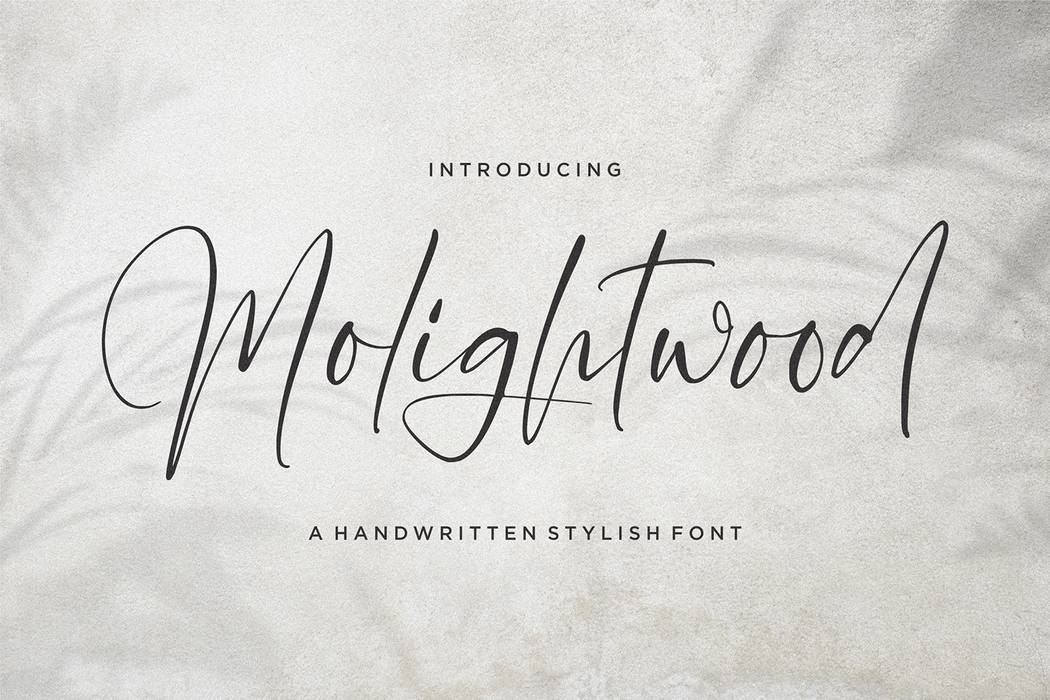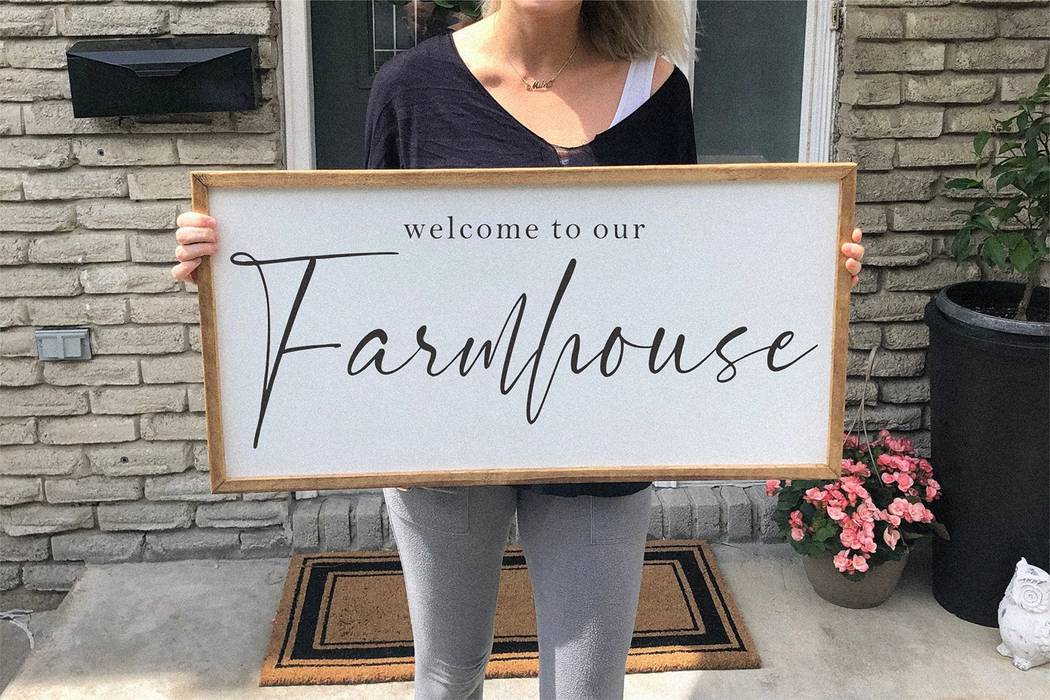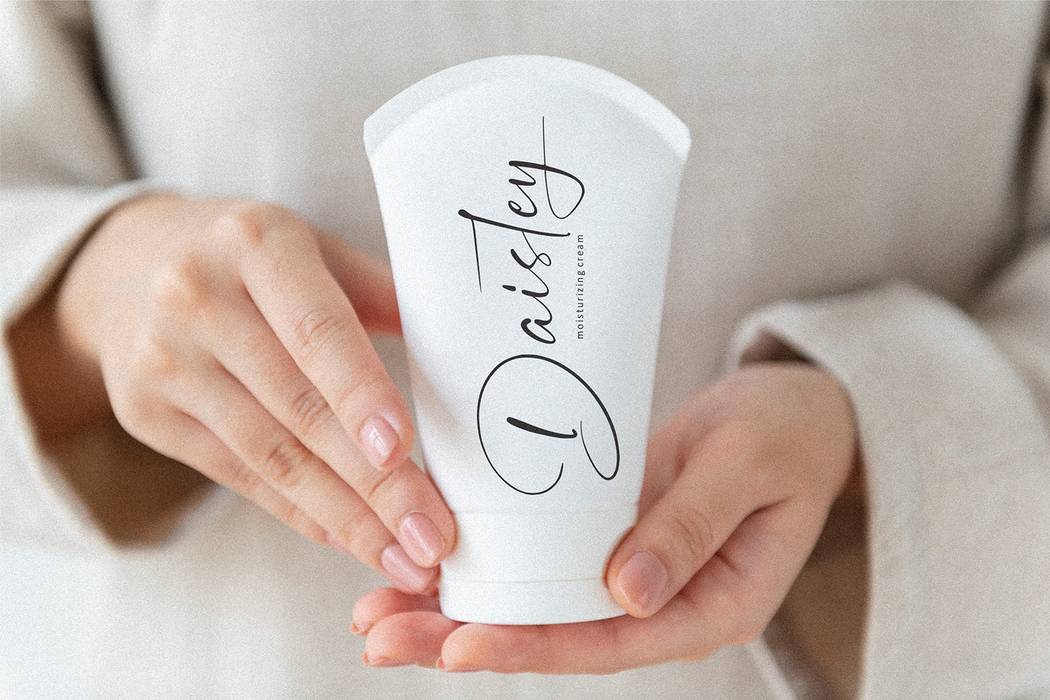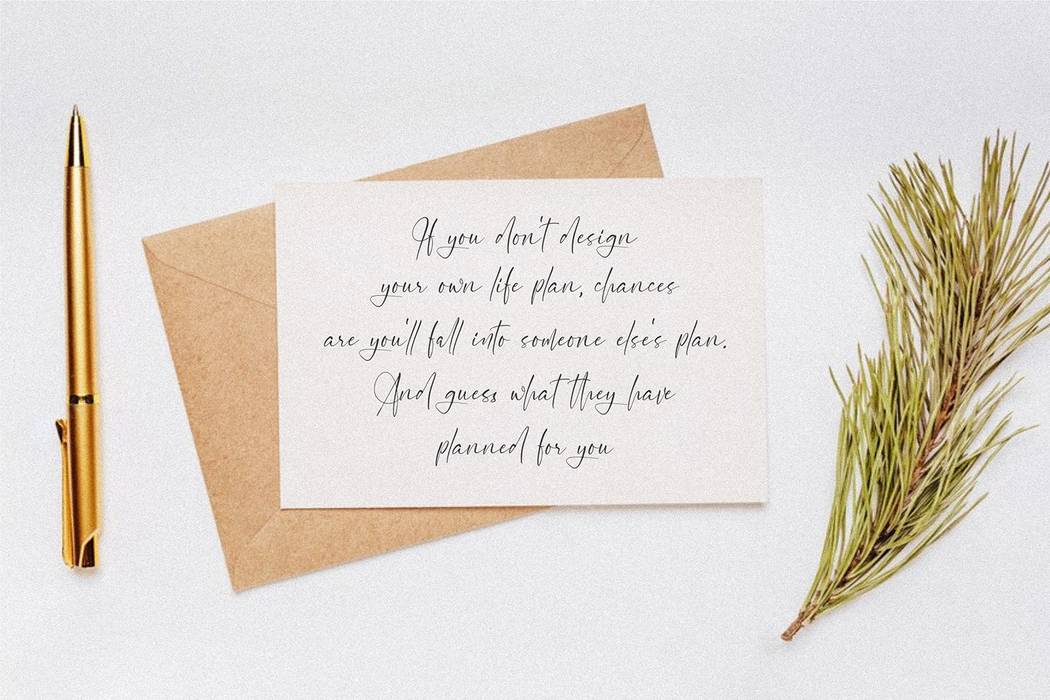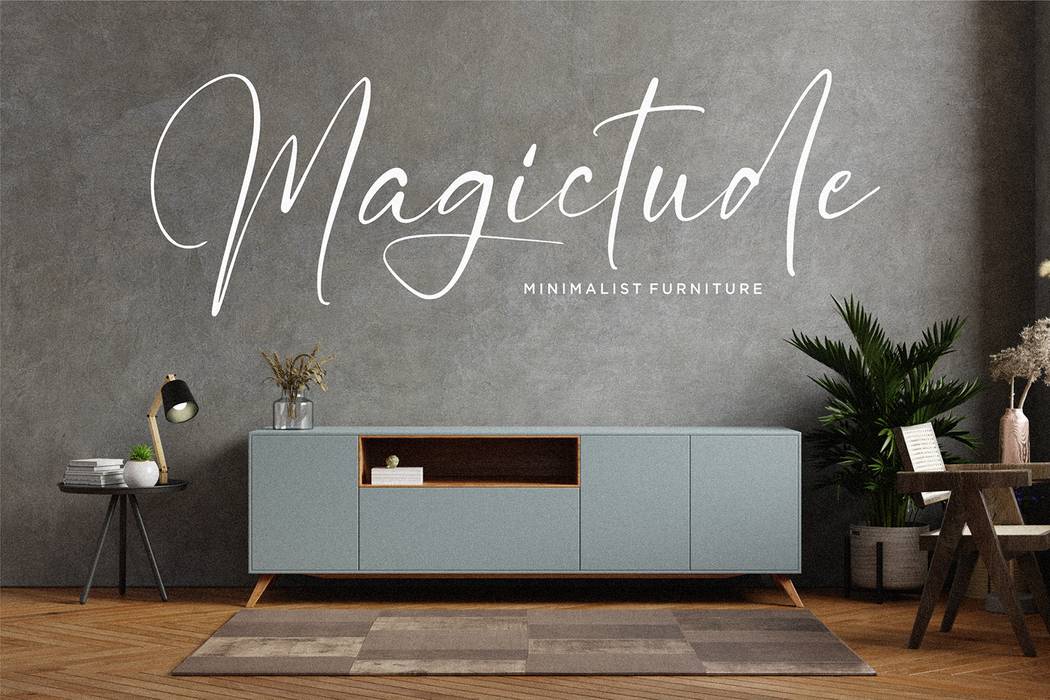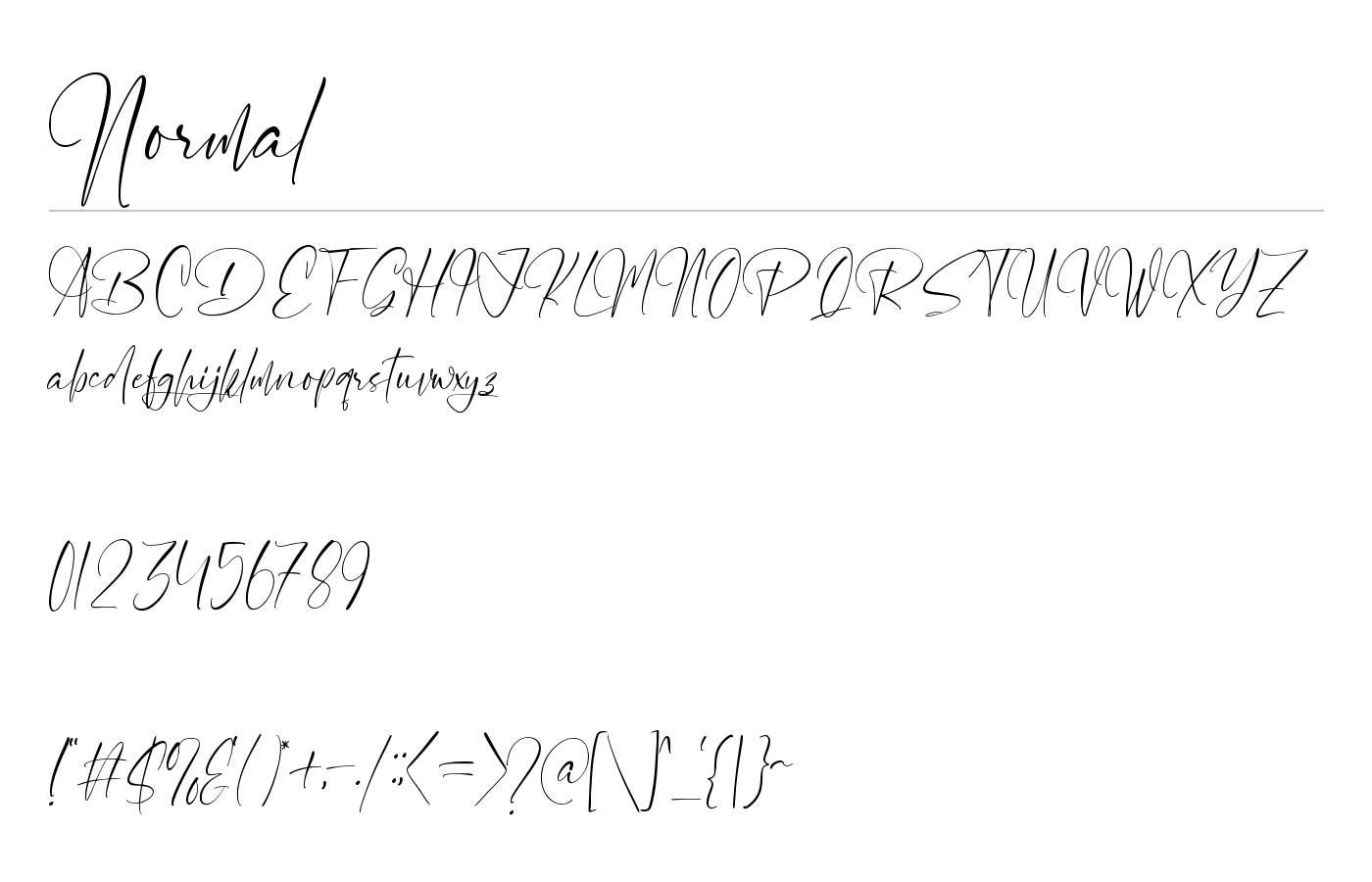
Molighwood is an elegant handwritten script font characterized by its tall, slender letterforms and delicate strokes that curve with a natural, flowing movement. Its fine, light lines and high contrast create a refined and sophisticated feel, making it perfect for luxury branding, wedding invitations, and stylish editorial uses where a touch of graceful personality is desired. This font works best in large sizes for headlines or decorative text, adding a classy and artistic flair to your designs.
Molighwood Font
About Molighwood Font